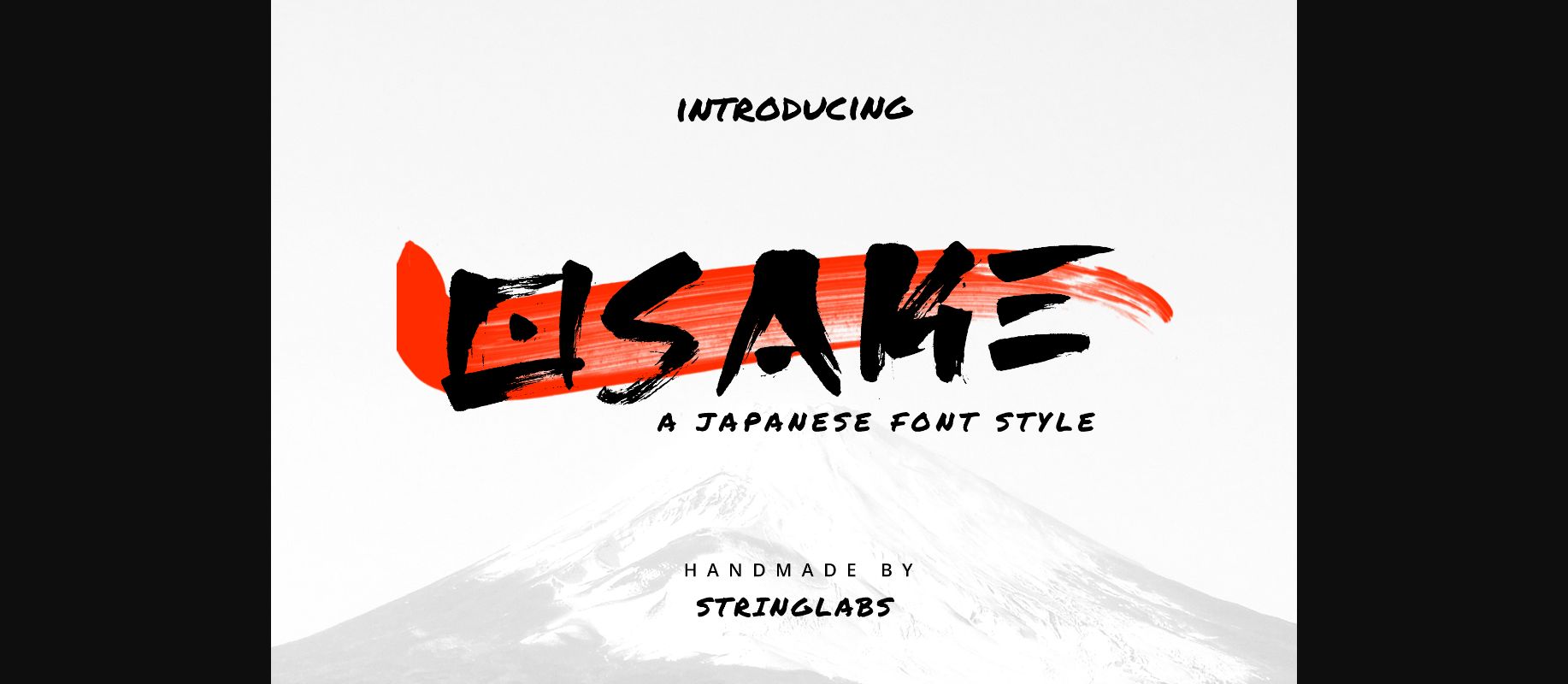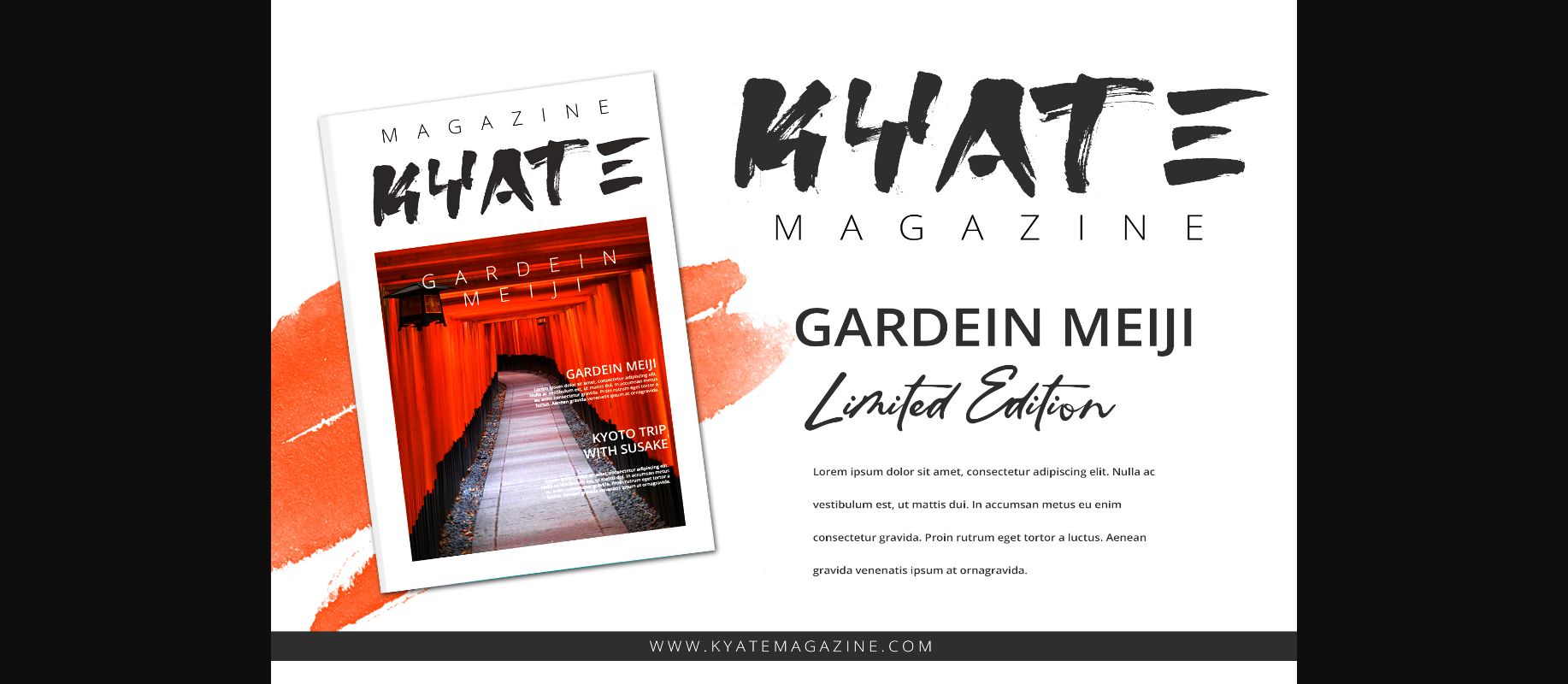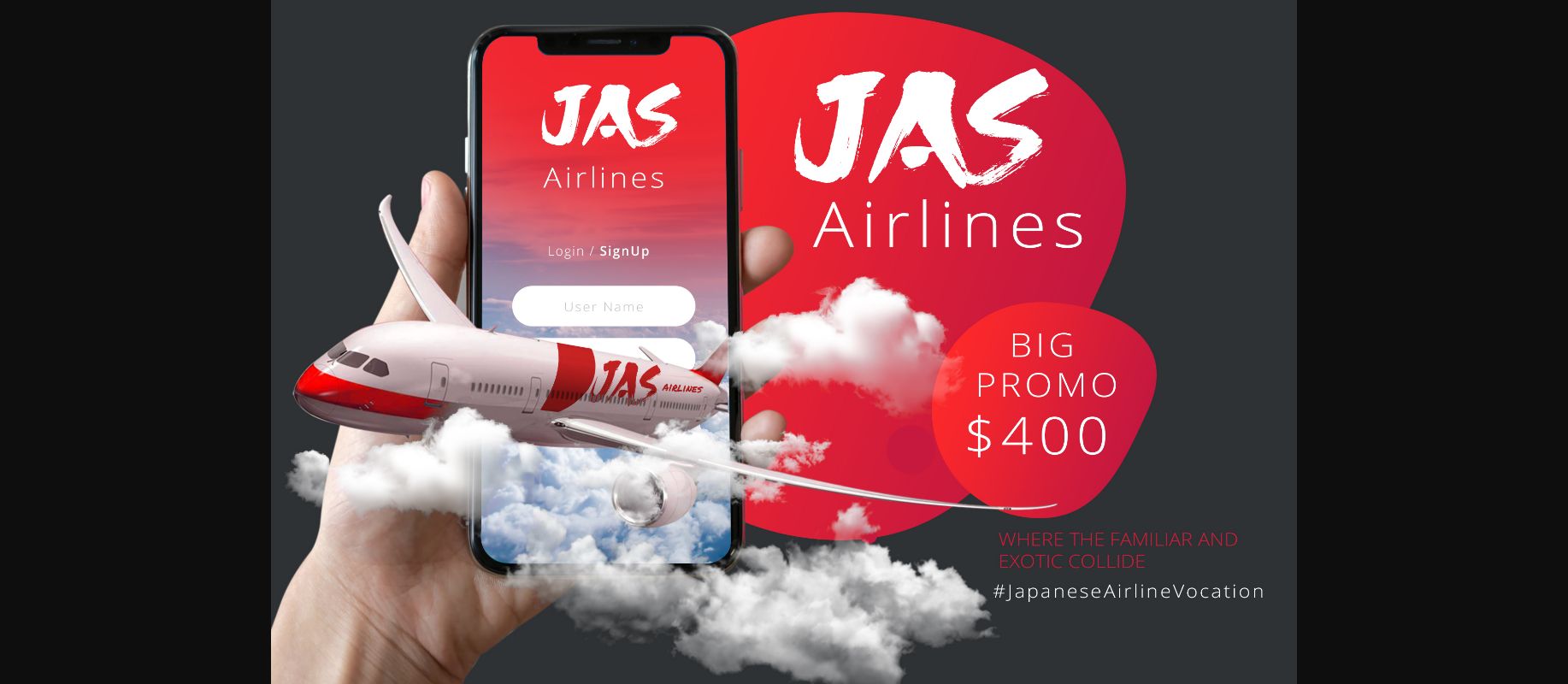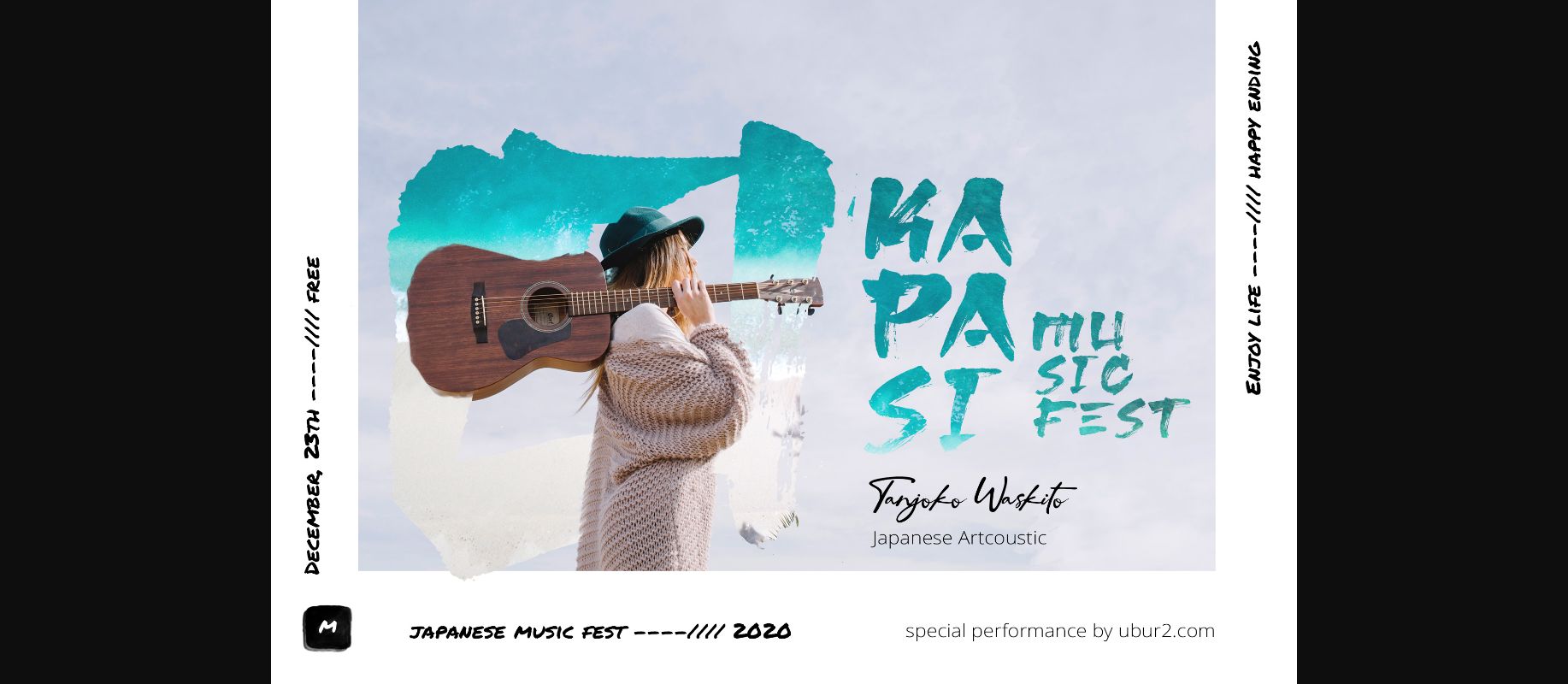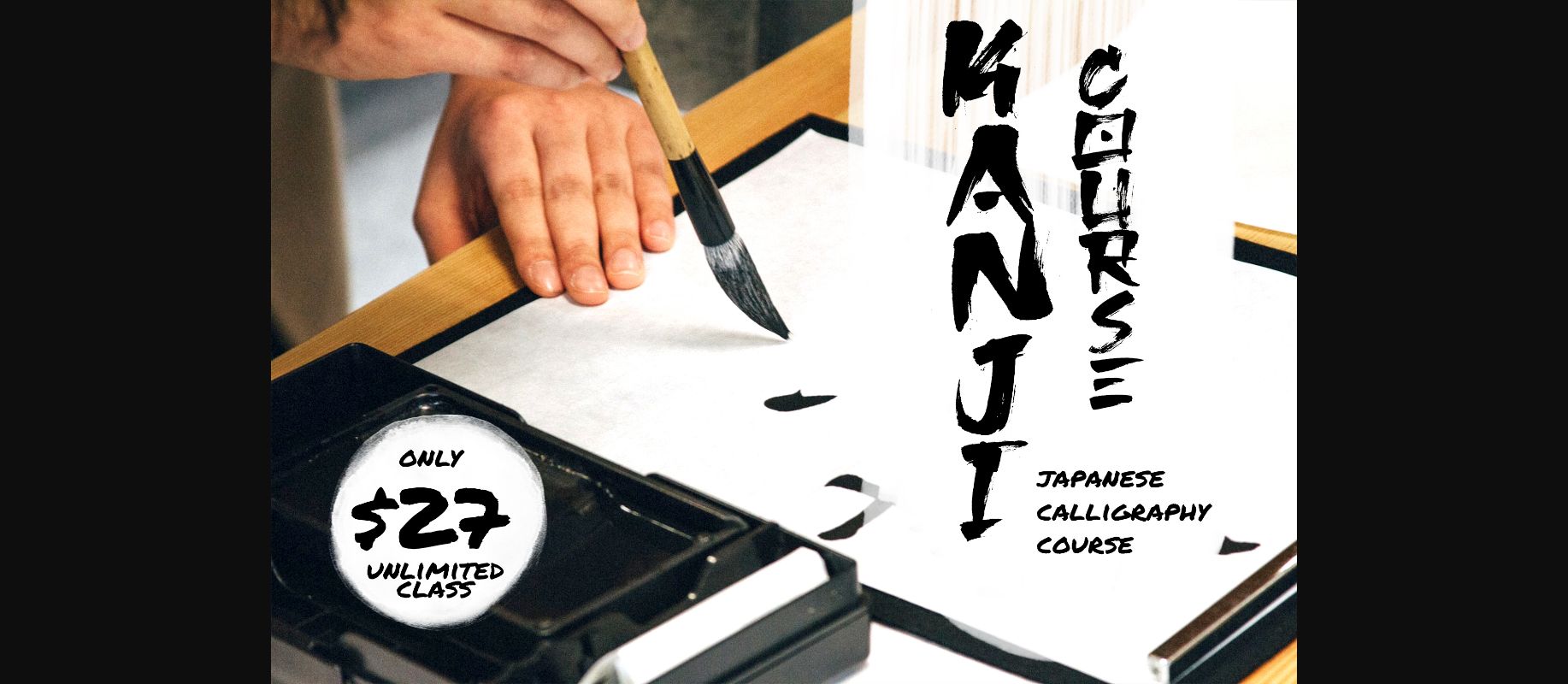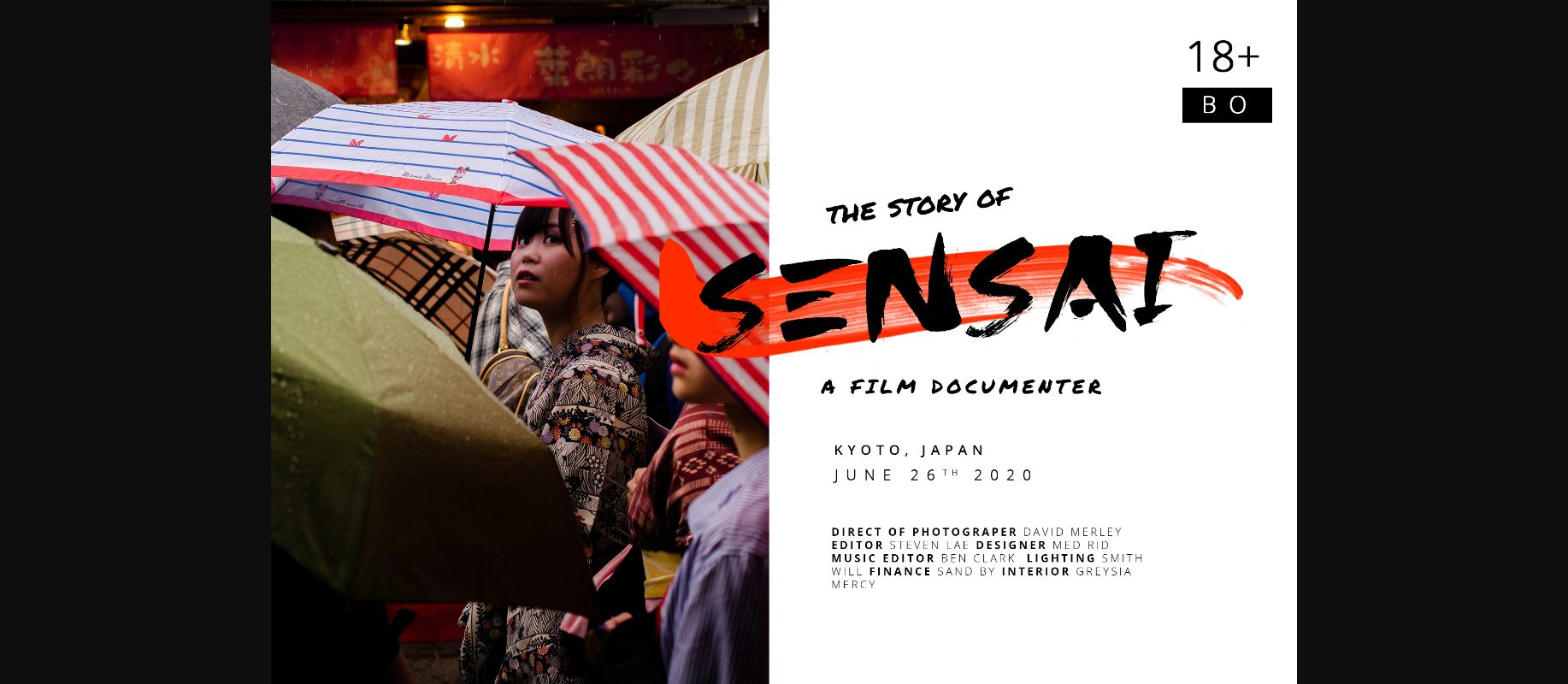
Osake Font
About Osake Font
Osake is a Japanese style decorative font, created by using a brush pen. This font is the perfect fit for all of your logos, branding, social media, and crafty DIY projects.